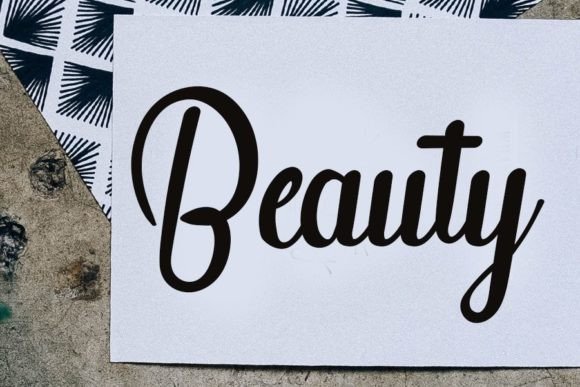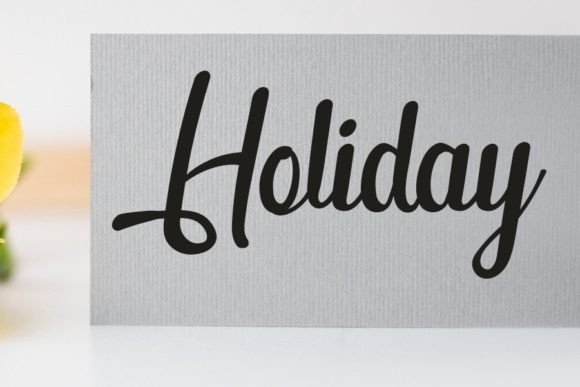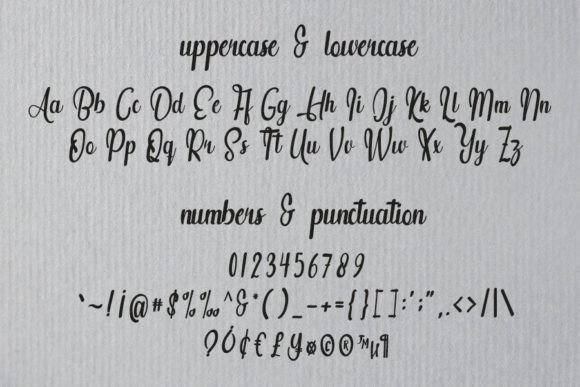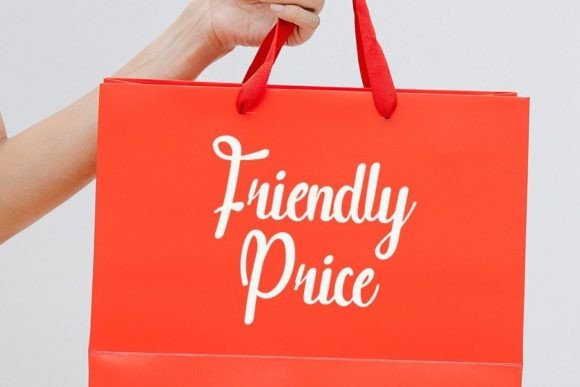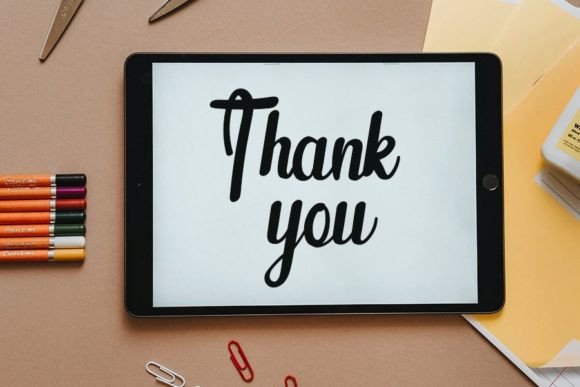
Introduction to Andin Font
Andin is a sweet and delicate handwritten font.
| 📌 Product Name | Andin Font |
| 👤 Author | Intana Type |
Dainty and joyful, this font will be ideal for writing wedding invitations, cards, or any other design that may need a romantic, personalized touch .
Key Features of Andin Font